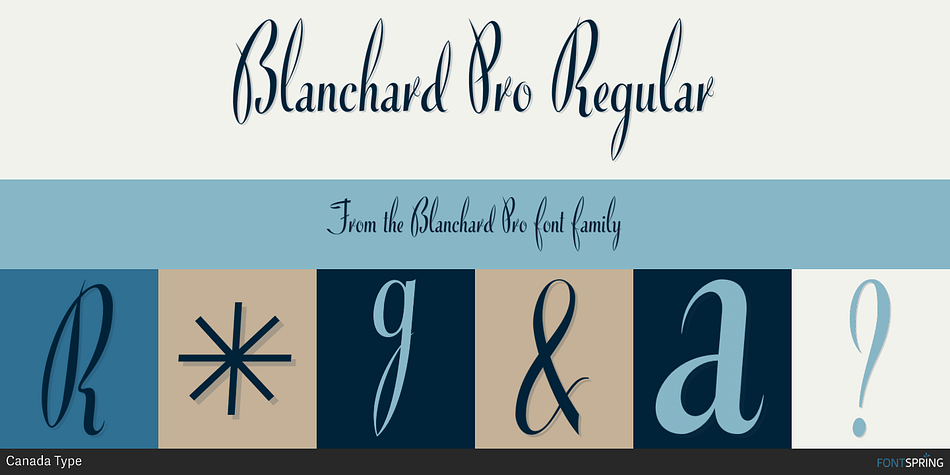
Blanchard Pro Regular
Blanchard Pro is a script font published by Canada Type.
Blanchard is a revival and elaborate extension of Muriel, a 1950 metal face made by Joan Trochut-Blanchard for the Fonderie Typographique Fran.